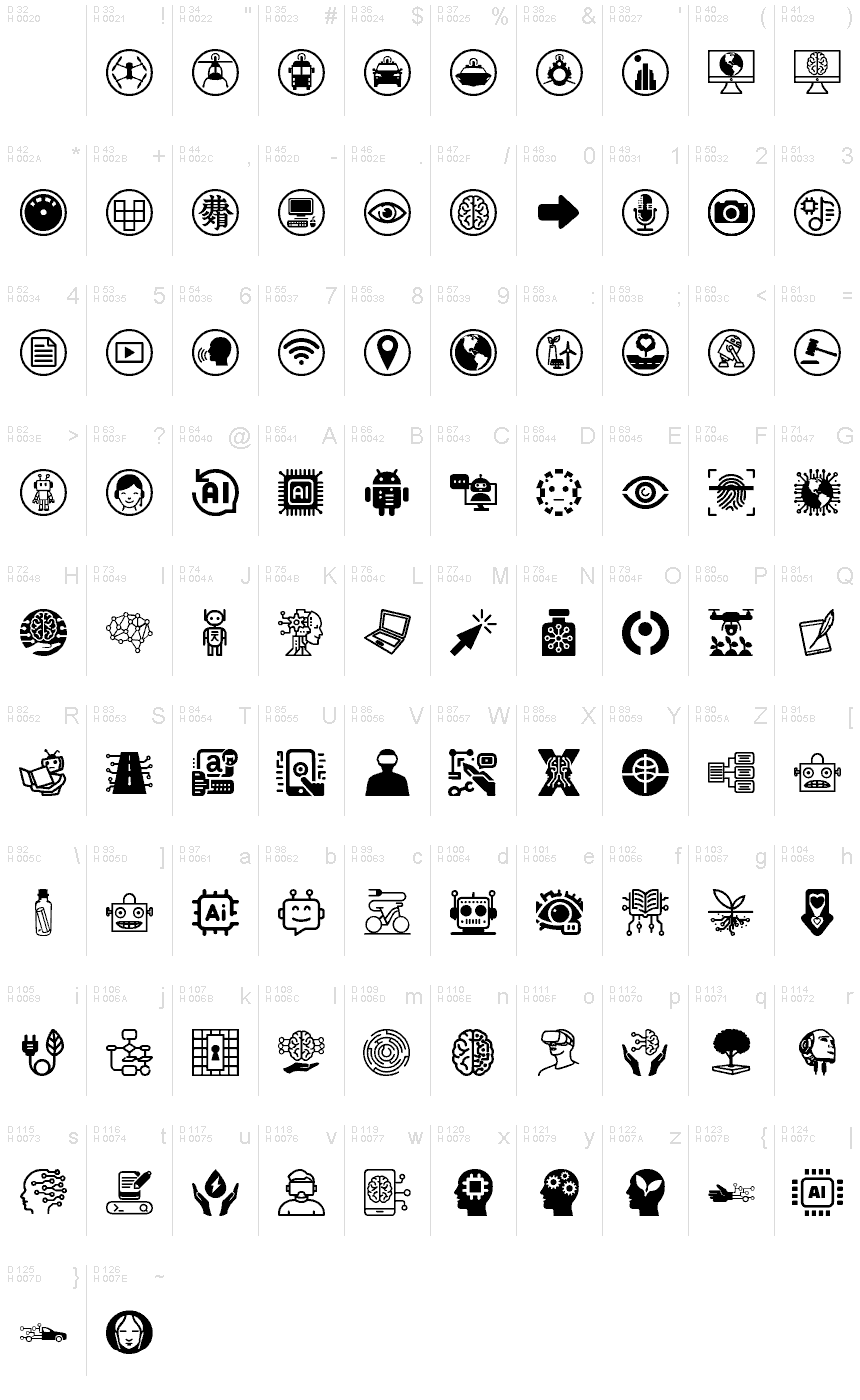
Artificial Intelligence
Artificial Intelligence font by Ric Stephens is a free dingbat display font for creative projects. The unusual letters and symbols provided connect perfectly with the design styles of artificial intelligence, technology, science, academics and similar fields of interest and research.
Use this resource to decorate magazine covers related to AI technologies or as part of an infographic for websites or mobile applications.